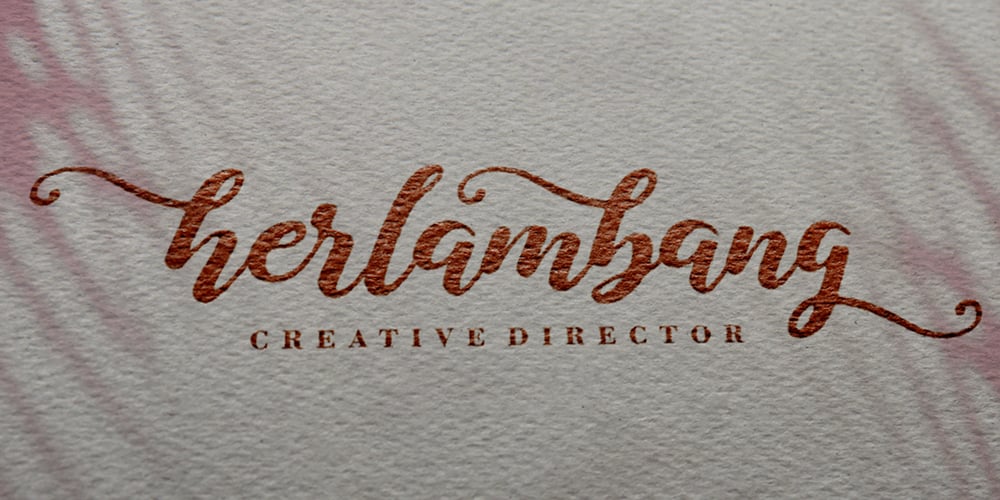
Sabryne Font Family was designed by Rangga Subekti and published by Subectype. Sabryne contains 1 styles and family package options. Sabryne is a beautiful and lovely script font. It has a great readability and will add a fun and lovely touch to any design. Sabryne is versatile and can be used on cards, posters, merchandise, book covers, websites, packaging, and basically anywhere you like. The overall feel of the font is warm, elegant and informal and it is perfect if you want to convey a sense of friendliness and style. The script has 250+ lovely glyphs with lots of stylistic variations, ligatures and swashes, which you can mix and match for a more interesting effect. The dancing baseline makes it very casual and full of personality, thus a great addition to every design project.